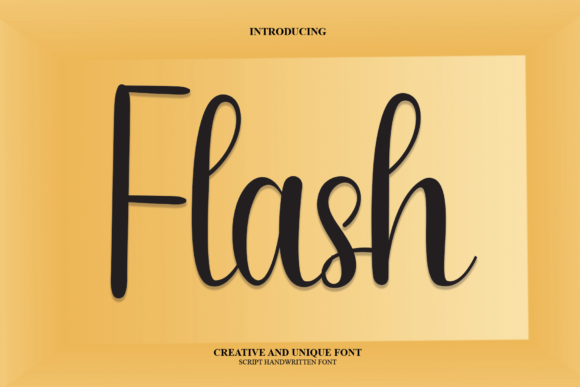
Embrace Flash Font - The Quintessential Script Font for Authors and Designers
Journey into the realm of literary enchantment with Flash Font, a script font that captivates the senses and ignites the imagination. Its elegant strokes and charming personality bring a touch of magic to every word, transforming your creations into captivating masterpieces.
Crafted with meticulous care by Strongkeng Old, Flash Font embodies the essence of handwritten elegance, evoking a sense of nostalgia and authenticity. Each letter dances across the page with a graceful fluidity, inviting readers to immerse themselves in the story's embrace.
As an author, Flash Font becomes your trusted companion, enhancing your words with an aura of sophistication and charm. Whether you're crafting a timeless novel, a captivating short story, or a heartfelt poem, Flash Font elevates your storytelling to new heights, leaving an indelible mark on readers' minds.
For designers, Flash Font opens up a world of creative possibilities. Its versatility shines through in a multitude of applications, from eye-catching logos and branding materials to enchanting invitations and wedding stationery. Infuse your designs with a touch of whimsy and elegance, leaving a lasting impression on your audience.
Step into a world of literary enchantment with Flash Font, where words come alive and stories take flight. Let your creativity soar and experience the transformative power of this captivating script font.